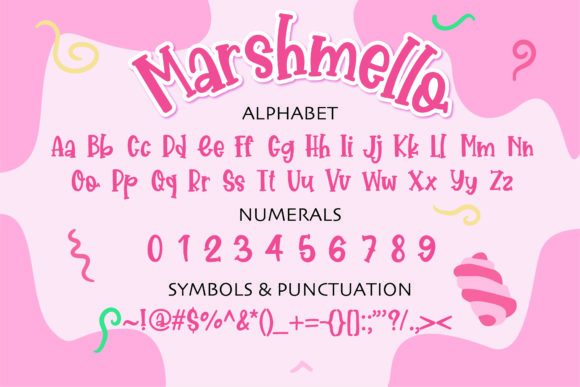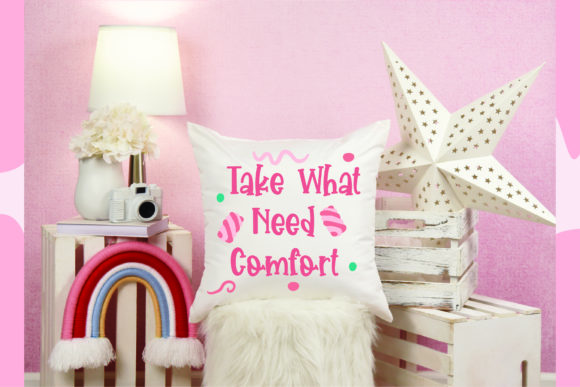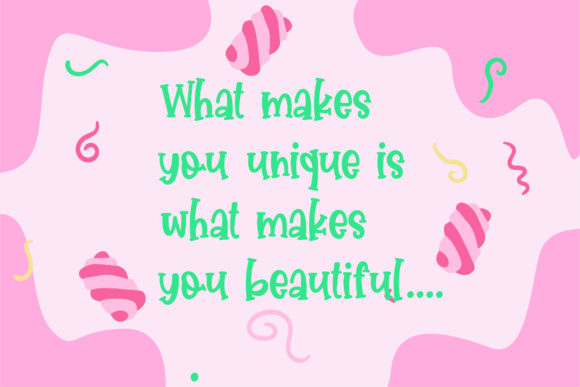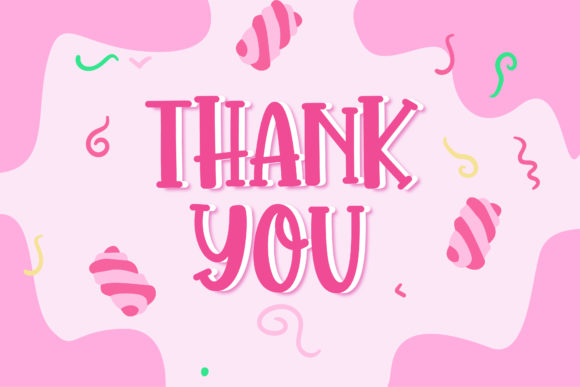
Introduction to Marshmello Font
We’re excited to introduce you to the Marshmello Font, a fun, playful, and cute display font that’s sure to brighten up any design. With its whimsical and quirky nature, this font is perfect for adding a touch of personality to your creative projects. Whether you’re working on a design resource or a high-quality digital product, the Marshmello Font is a valuable addition to your toolkit.
Key Features of Marshmello Font
- High-quality design resource suitable for creative projects, such as logos, posters, and graphics.
- Unique, modern design with a transparent background, allowing for versatility in design applications.
- Includes a wide range of characters, including uppercase and lowercase letters, numbers, and special symbols.
Honest Review: Marshmello Font
The Marshmello Font is a unique and quirky design resource that adds a touch of whimsy to any creative project. I was excited to dive in and see what it had to offer.
- ✨ The font’s transparency allows for seamless integration with backgrounds, making it perfect for designs with a transparent background.
- ✨ The font’s versatility makes it suitable for a wide range of creative projects, from music festival branding to editorial design.
- ✨ The high quality of the font ensures that it looks sharp and clear, even at larger sizes.
- ⚠️ The font may not be suitable for all design styles, particularly those that require a more serious or professional tone.
- ⚠️ Some users may find the font’s quirks and irregularities to be distracting or difficult to read.
Tips for Getting the Most Out of Marshmello Font
To get the most out of the Marshmello Font, experiment with different font sizes, colors, and combinations to create unique and eye-catching designs.
Common Use Cases for Marshmello Font
The Marshmello Font is ideal for a variety of creative projects, including logos, posters, and social media graphics. Its transparent background makes it perfect for use on top of images or videos, adding a touch of sophistication to your designs.